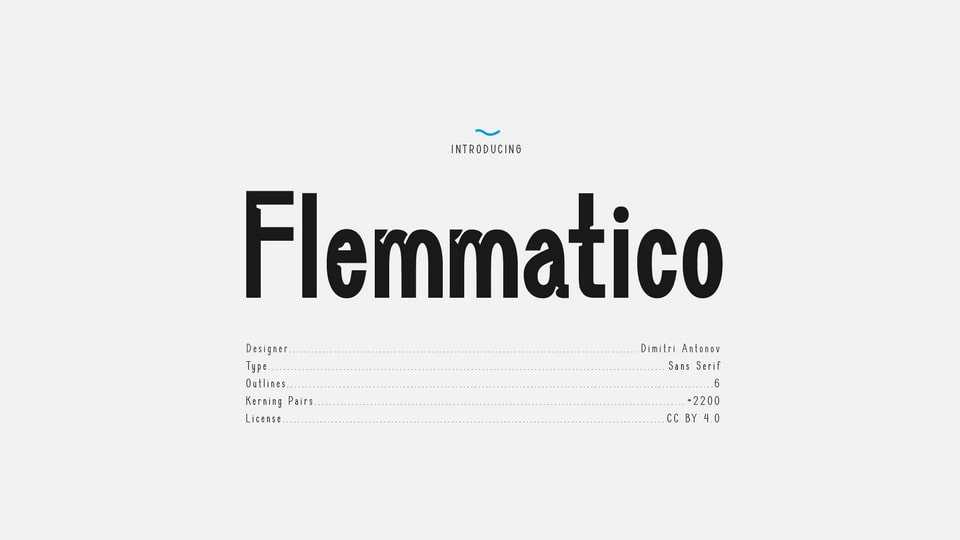
Download Flemmatico font, an organic grotesque typeface that balances geometric rigor with human warmth. Its tall, narrow proportions give it a commanding vertical presence.
Designer: Dimitri Antonov